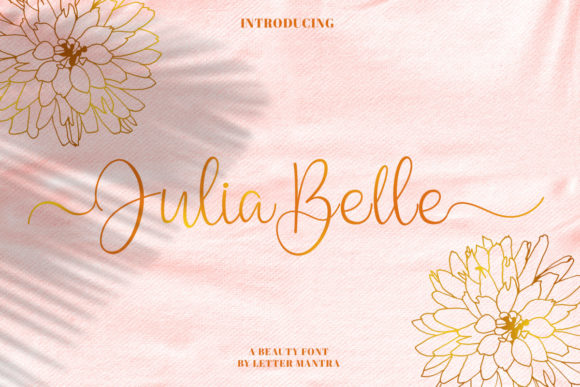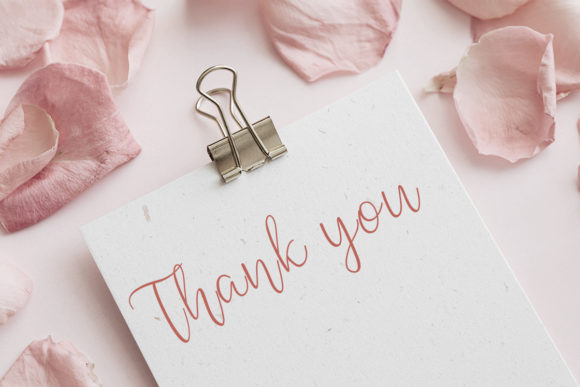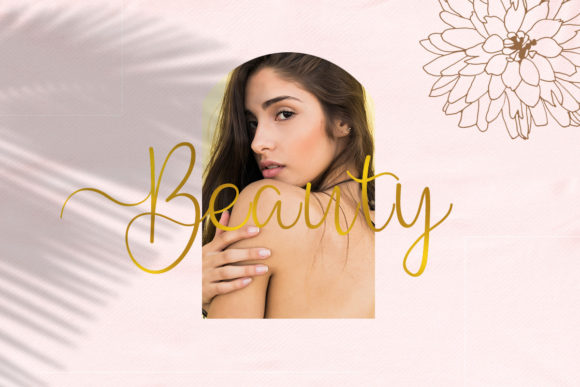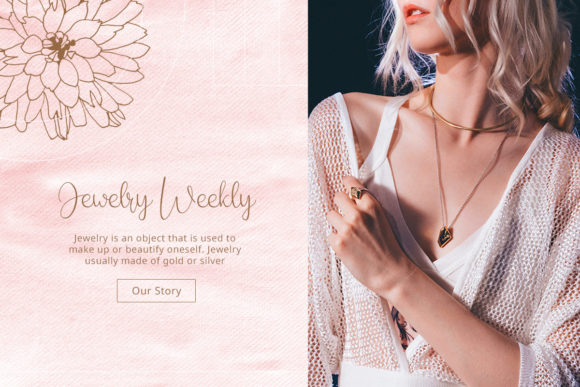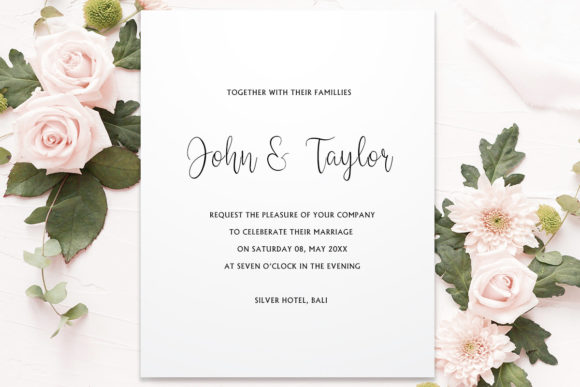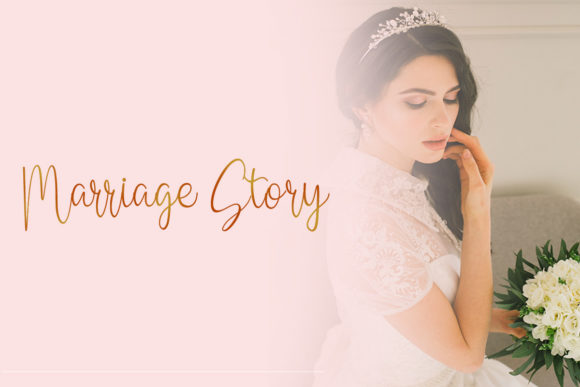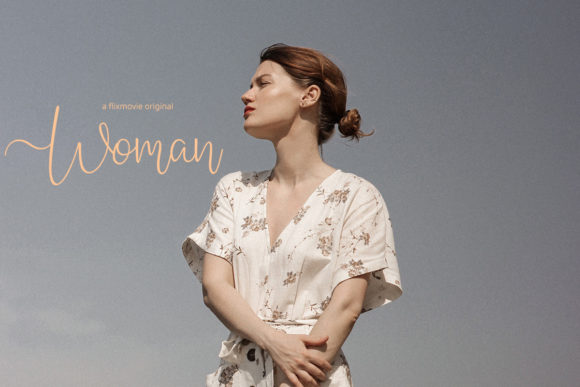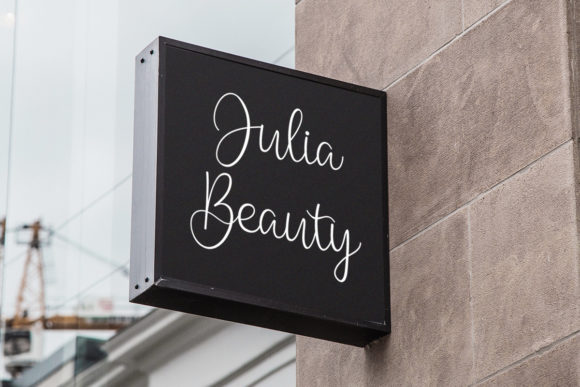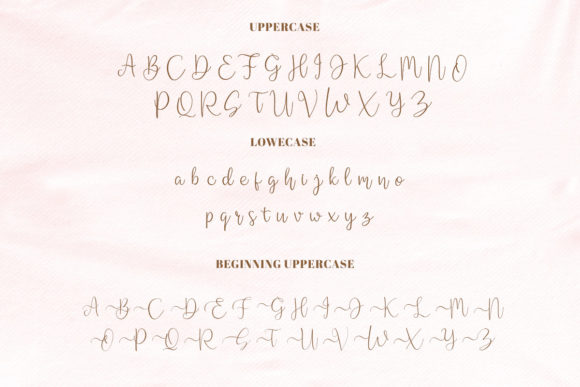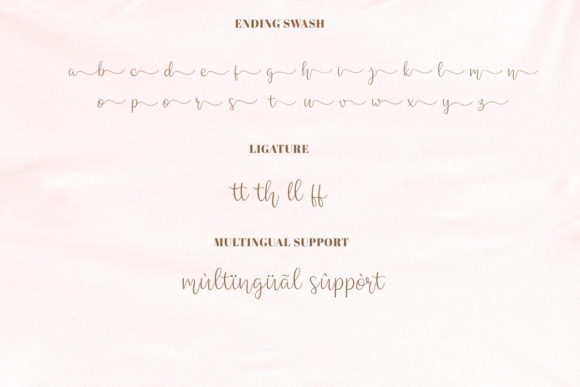
Julia Belle Script Font
About Julia Belle Script Font
Julia Belle Script exudes beauty and charm. This font is PUA encoded which means you can access all of the glyphs and swashes with ease!